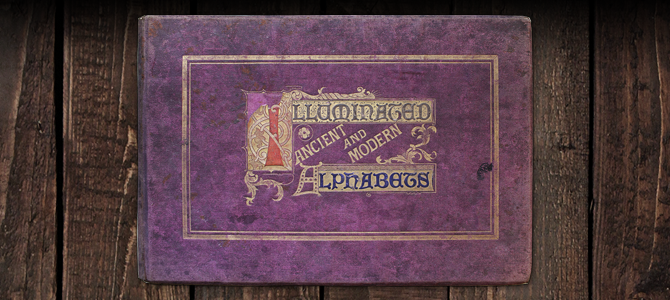
Illuminated Ancient and Modern Alphabets - Unknown Author - Unknown Date
This mystery book is among the finest in my possession. There is no author listed, no date of publication, and it appears to be three books in one, with three separate title pages. The first section is replete gorgeous full color and gilded illuminated initial letters. The second is filled with ornamental alphabets, and the third has another grouping of more standard and practical alphabets with a few surprises thrown in. My best guess is that this was a compilation of some of the best material of the era which I assume to be 1860's-1880's judging by the content.